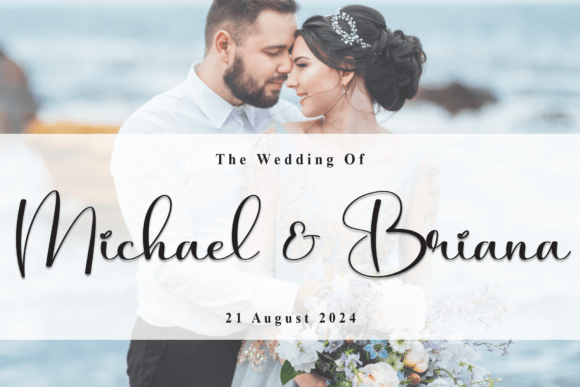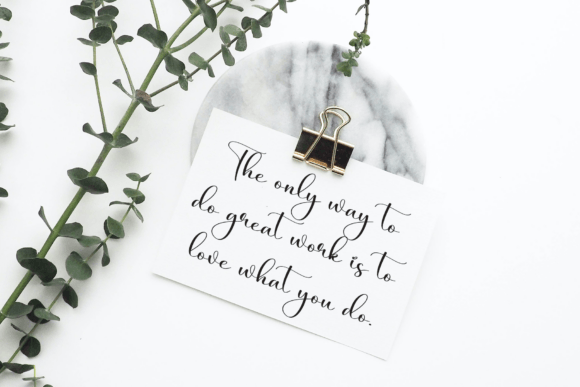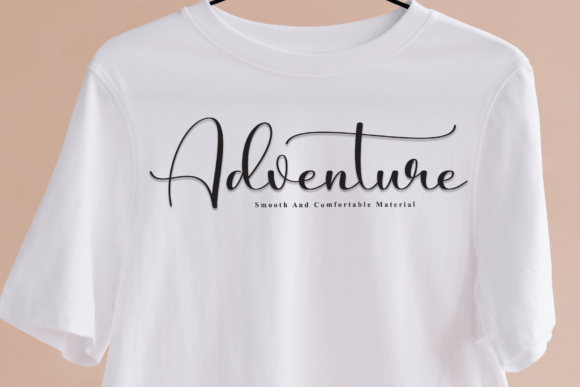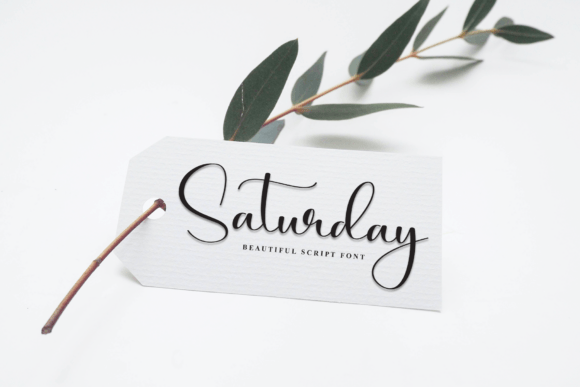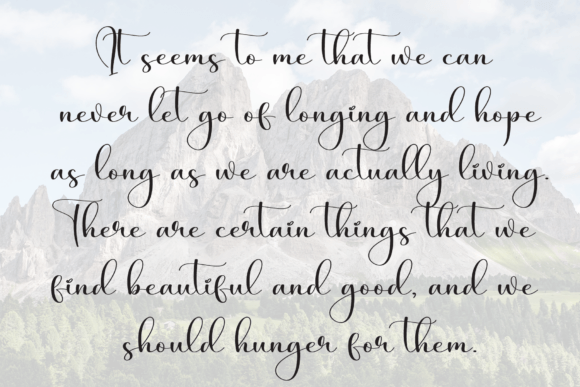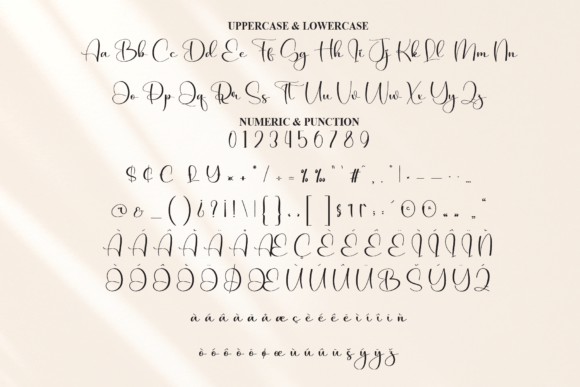
Introducing Greating Font: The Perfect Handwritten Touch for Your Designs
Are you looking for a font that adds a personal touch to your designs? Look no further than Greating Font! This charming handwritten font is designed to look like it was written with a pen, giving it a warm and friendly feel that’s perfect for cards, invitations, and any project that needs a touch of personality.
The Characteristics of Greating Font
Greating Font is a unique and versatile font that boasts a range of characteristics that make it perfect for a variety of design projects. Some of its key features include:
- Handwritten feel: Greating Font has a distinctly handwritten feel that’s reminiscent of a pen-written letter. This makes it perfect for designs that need a personal touch.
- Warm and friendly: The font has a warm and inviting feel that’s sure to make your designs feel more approachable and engaging.
- Charming and elegant: Despite its handwritten feel, Greating Font is also surprisingly elegant and charming, making it perfect for more formal designs like invitations and wedding cards.
Uses for Greating Font
Greating Font is a versatile font that can be used for a wide range of design projects. Here are just a few ideas to get you started:
- Cards and invitations: Greating Font is perfect for creating personalized cards and invitations for special occasions like birthdays, weddings, and holidays.
- Stationery and letterhead: Add a touch of personality to your stationery and letterhead with Greating Font.
- Social media graphics: Use Greating Font to create engaging and personalized social media graphics that will help you stand out from the crowd.
- Branding and packaging: Greating Font can also be used to add a touch of personality to your branding and packaging.
Tips for Using Greating Font
Here are a few tips for getting the most out of Greating Font:
- Use it with a personal touch: Greating Font is all about adding a personal touch to your designs. Use it to create designs that feel warm and inviting.
- Experiment with colors and textures: Greating Font looks great in a range of colors and textures. Experiment with different combinations to find the one that works best for your design.
- Pair it with other fonts: Greating Font can be paired with a range of other fonts to create a unique and interesting look.
Why Designers and Crafters Love Greating Font
Greating Font has quickly become a favorite among designers and crafters. Here are just a few reasons why:
- Easy to read: Despite its handwritten feel, Greating Font is surprisingly easy to read, making it perfect for designs that need to communicate a message.
- Versatile: Greating Font can be used for a wide range of design projects, from formal invitations to social media graphics.
- Unique: Greating Font has a unique and distinctive feel that’s sure to make your designs stand out from the crowd.
Greating Font is a charming handwritten font that’s perfect for adding a personal touch to your designs. With its warm and friendly feel, it’s perfect for cards, invitations, and any project that needs a touch of personality. Whether you’re a designer or crafter, Greating Font is sure to become a favorite in your toolkit.